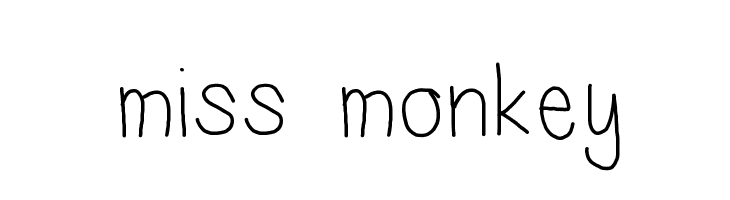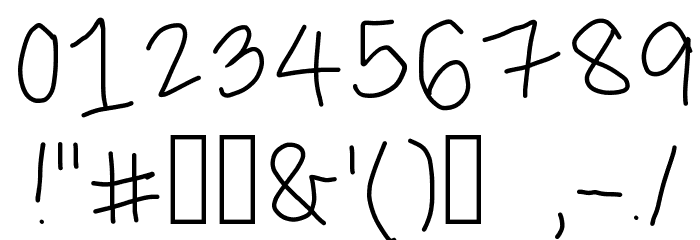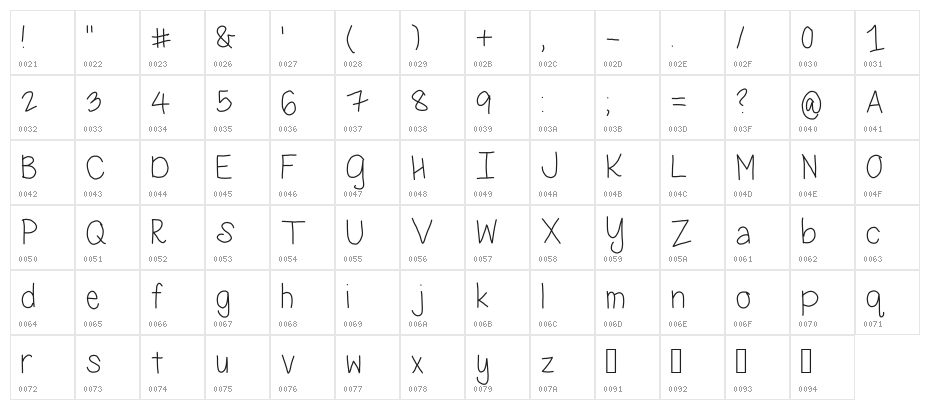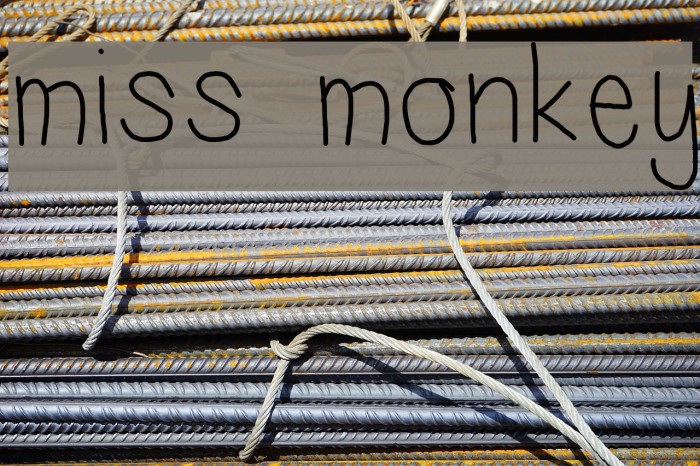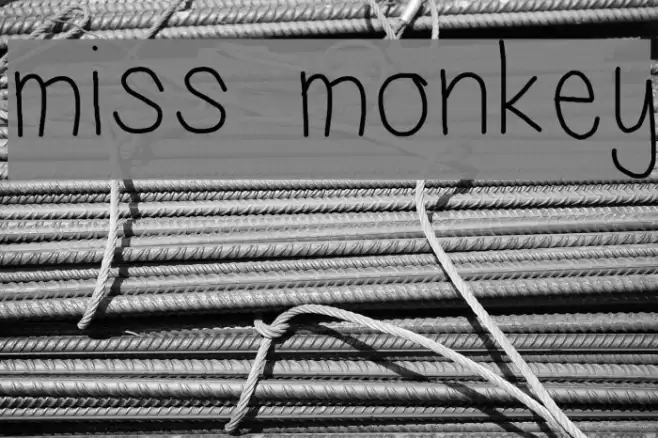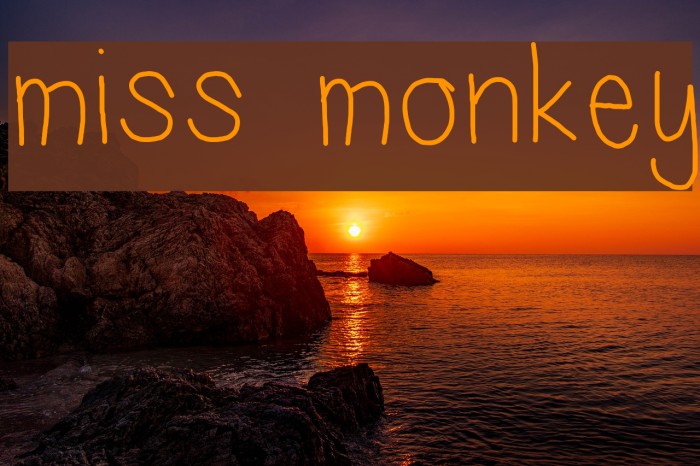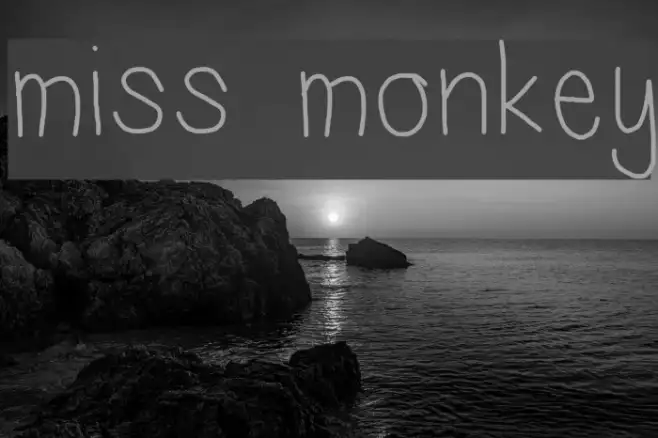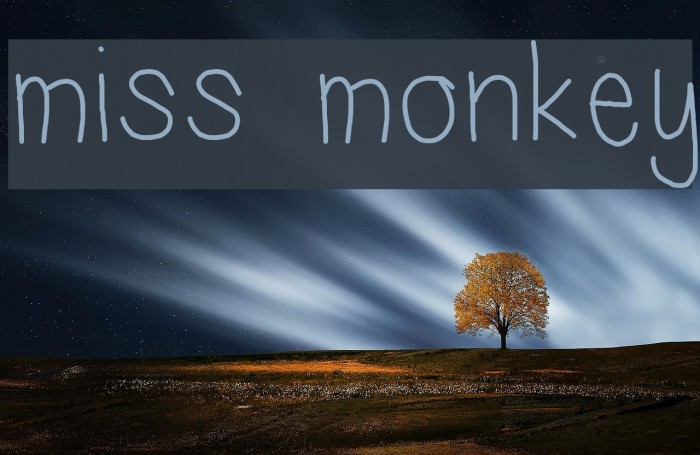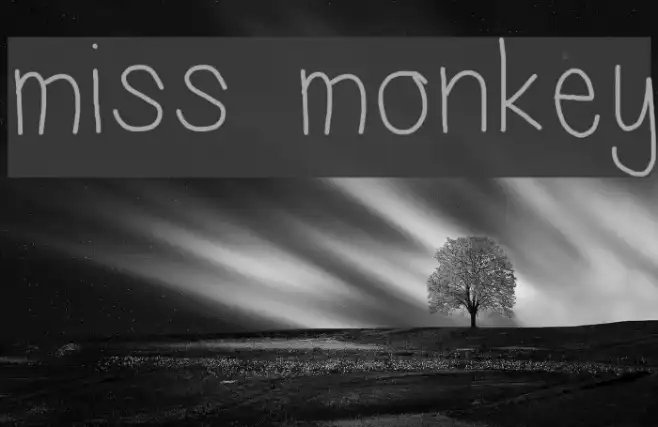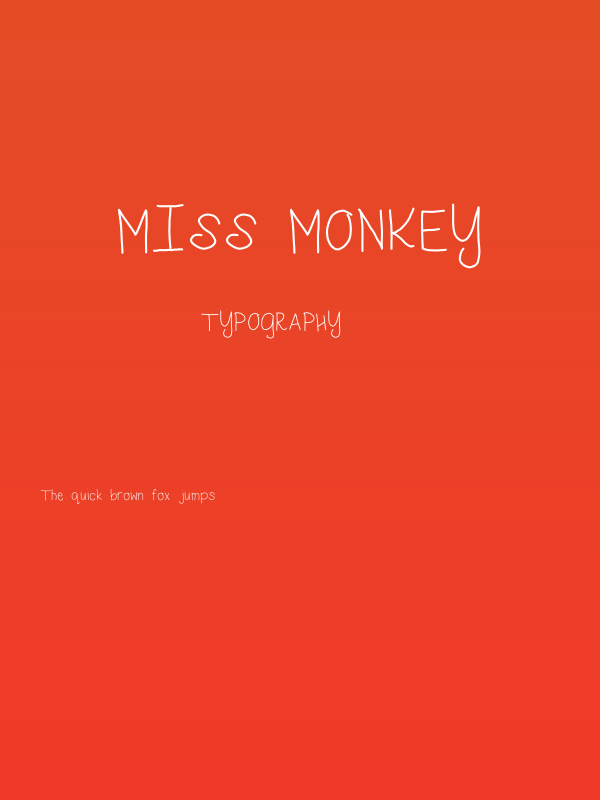
miss monkey Font
miss monkey Description
This font features a playful and informal handwritten style, characterized by its uneven lines and casual appearance. The letters are slightly irregular, giving a personal and friendly touch to the text. The uppercase and lowercase letters maintain a consistent style, with rounded edges and a slight tilt, enhancing its whimsical nature. The numerals and special characters follow the same playful design, making it suitable for creative and informal projects. The overall look is approachable and lively, perfect for adding a touch of personality to any design.
| Proposed Projects | Ideal for children's books, greeting cards, personal blogs, and informal branding. |